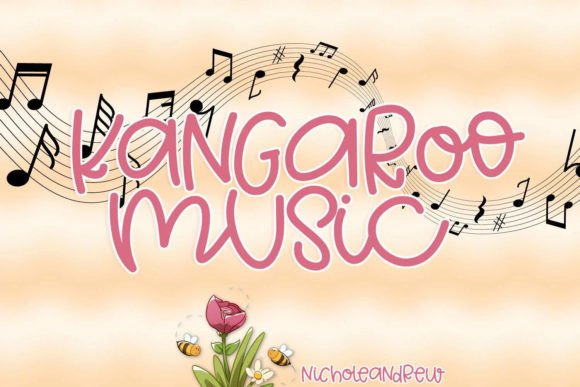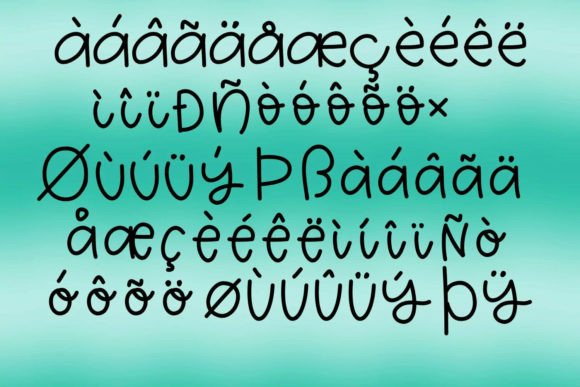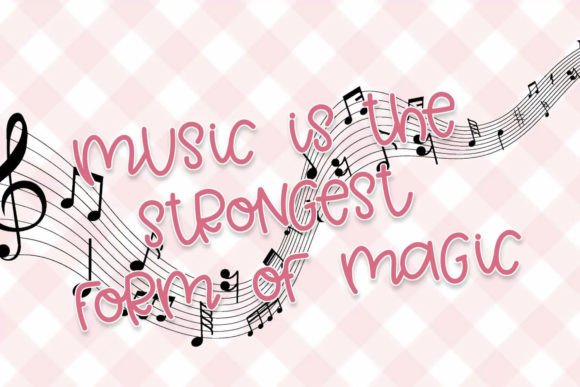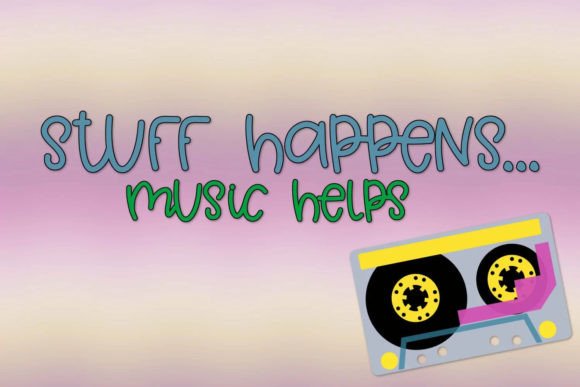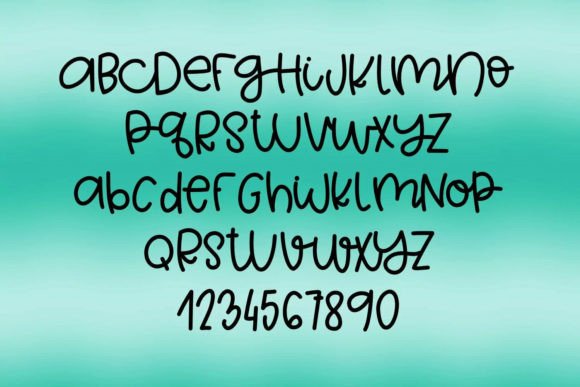
Kangaroo Music Font
Kangaroo Music is a cute and quirky handwritten font designed to bring a playful and unique touch to your creative projects. Featuring a fun, run-together style of lettering, this font creates a handwritten look and feel that adds character and charm. With a mixture of uppercase and lowercase letters, Kangaroo Music is versatile and will look amazing on a variety of projects.
The cuteness and quirkiness of Kangaroo Music are immediately apparent, making it an excellent choice for projects that demand a lighthearted and whimsical aesthetic. The run-together style adds a dynamic and fun touch, creating a visual experience that is both playful and memorable.
The mixture of uppercase and lowercase letters in Kangaroo Music enhances its versatility. Whether you’re working on branding, invitations, or any other project, this font seamlessly integrates, offering a unique and personalized typographic expression.
Incorporating Kangaroo Music into your projects is an invitation to infuse them with a cute and quirky vibe. This handwritten font becomes a valuable tool, ready to add character and playfulness to your designs.
In summary, Kangaroo Music is more than just a font; it’s a cute and quirky design asset that brings a delightful touch to your projects. With its fun, run-together style and a mix of uppercase and lowercase letters, Kangaroo Music stands ready to be the perfect companion for a variety of creative endeavors, making your designs unique and full of character.